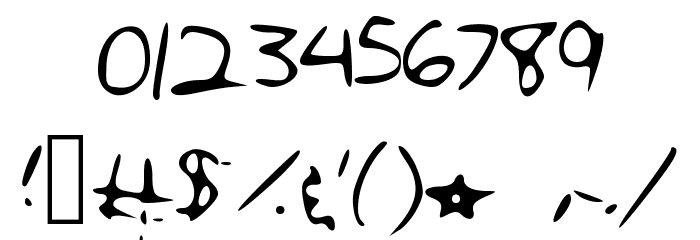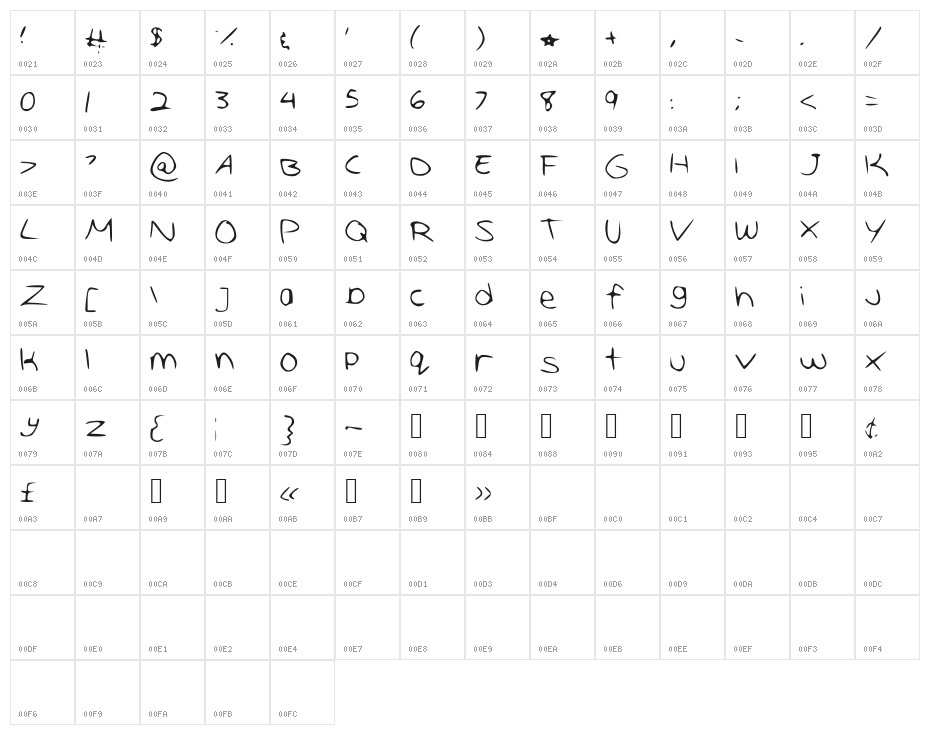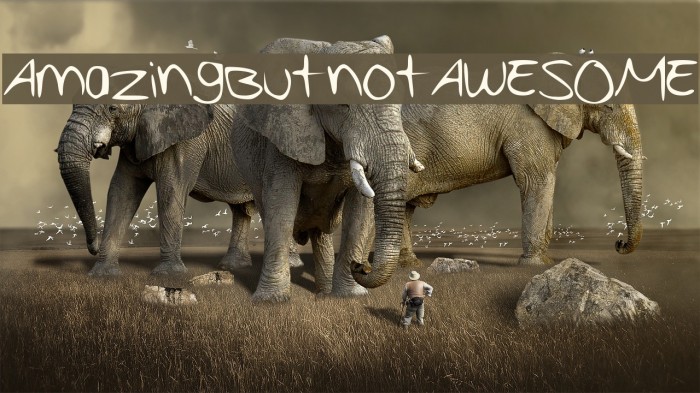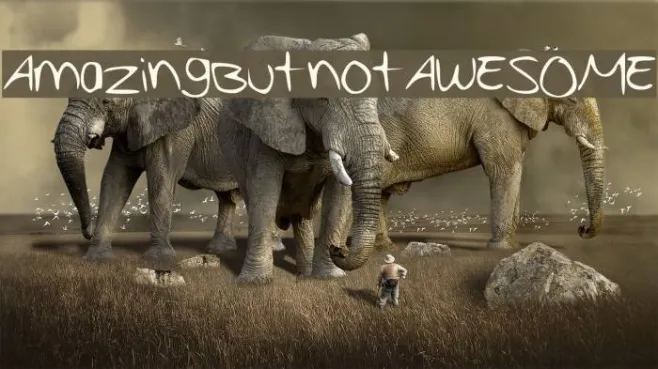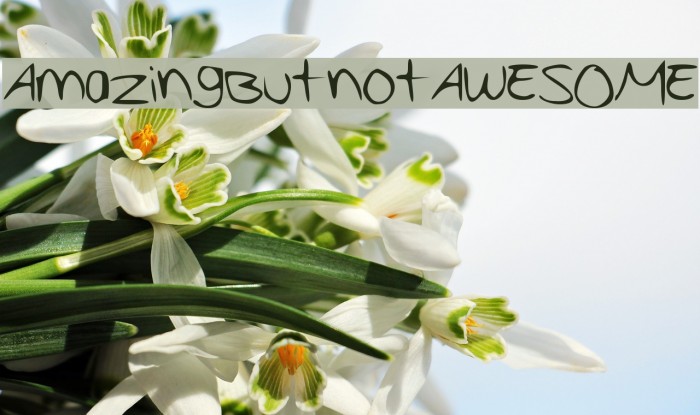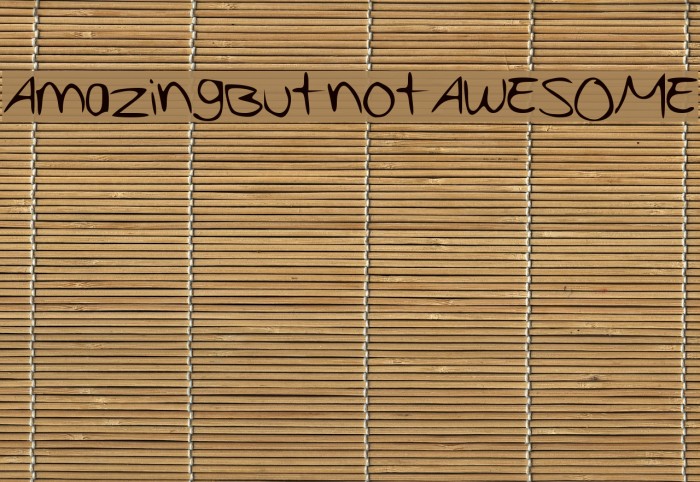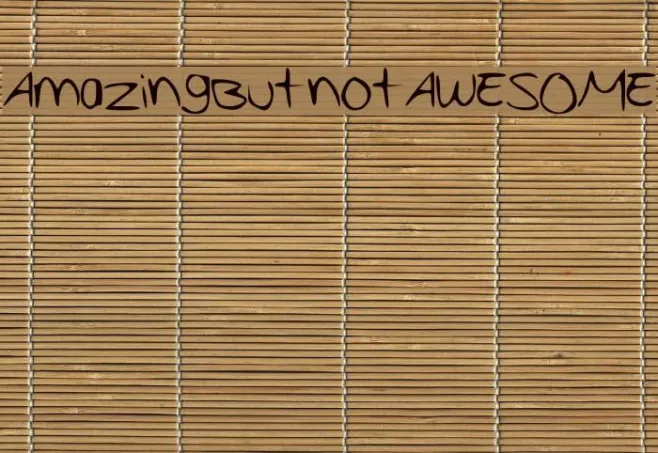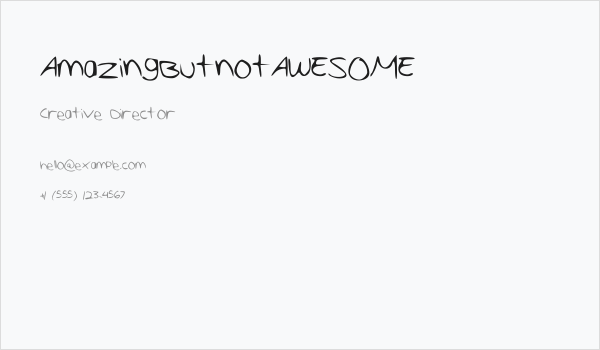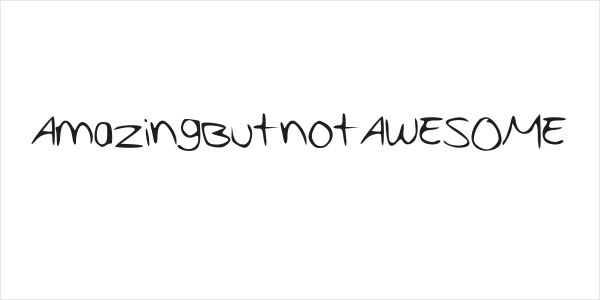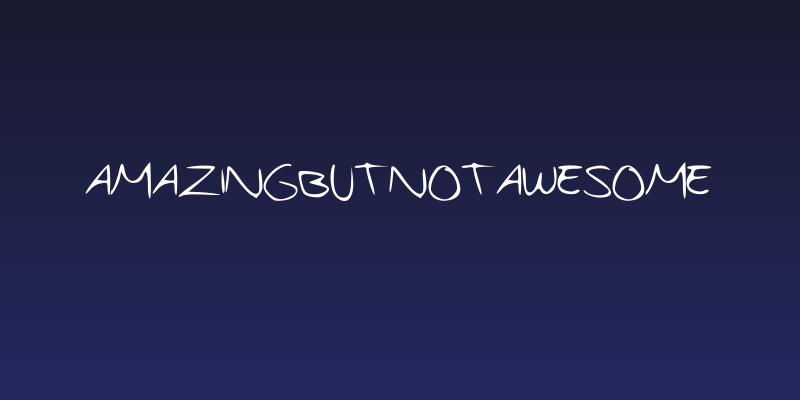
AmazingButnotAWESOME Font
AmazingButnotAWESOME Description
This font features a playful and whimsical design, characterized by its irregular and flowing letterforms. The uppercase letters are bold and dynamic, with a sense of movement that adds a lively touch. The lowercase letters maintain this playful style, with unique curves and angles that give each character a distinct personality. The numbers are equally expressive, with varying thicknesses and quirky shapes. Special characters are creatively designed, adding to the font's overall charm. This font's hand-drawn appearance makes it ideal for projects that require a personal and artistic touch.